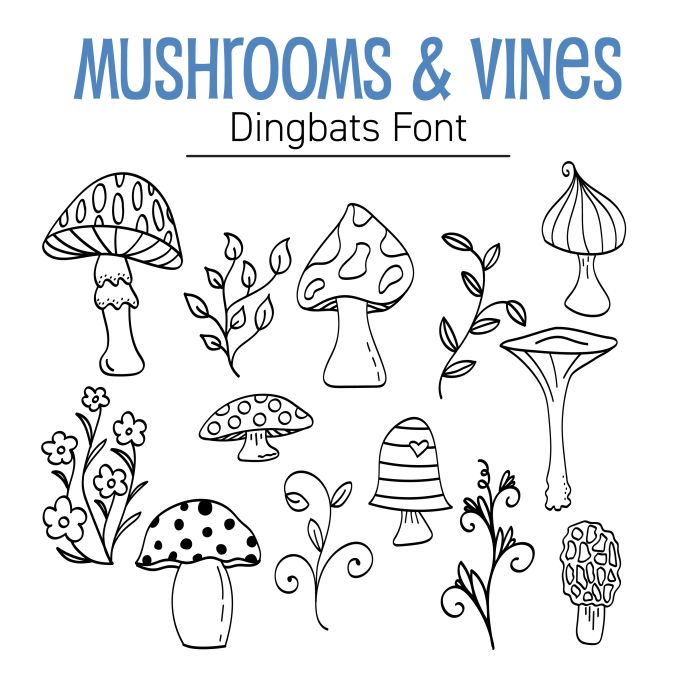
Add a touch of forest whimsy to your crafts with the Mushrooms & Vines Dingbats Font! This hand-drawn dingbat collection features 26 charming illustrations, including wild mushrooms, curly vines, woodland foliage, and botanical elements—all ready to use like a font in Silhouette Studio. Each glyph is a scalable vector, perfect for resizing without losing quality. Use them to design magical cards, sticker sheets, garden signs, vinyl decals, or scrapbook embellishments. Great for cutting with HTV, adhesive vinyl, cardstock, and printable sticker paper. Whether you're crafting nature-themed decor or creating enchanted forest party supplies, this font brings a delightful organic feel to your projects.